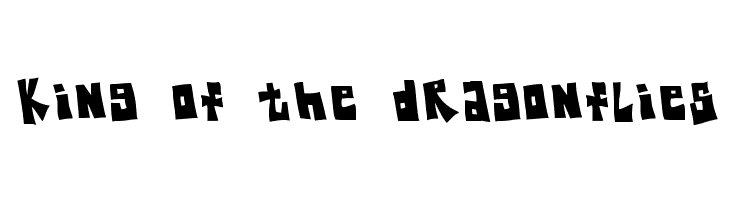
( Fonts by Jacob Fisher - www.pizzadude.dk )
A playful, hand-drawn font with irregular, energetic strokes.
( Fonts by Jacob Fisher - www.pizzadude.dk )
A bold, brush-style font with dynamic, jagged strokes.
( Fonts by dustBUST - Andreas Nylin )
A playful, hand-drawn font with a whimsical and dynamic style.
( Fonts by dustBUST - Andreas Nylin )
A playful, hand-drawn font with quirky, bold characters.
( Fonts by Jacob Fisher - www.pizzadude.dk )
A bold, angular font with a dynamic, futuristic style.
( Fonts by or from www.graffitifonts.net )
A playful, hand-drawn font with irregular, artistic strokes.